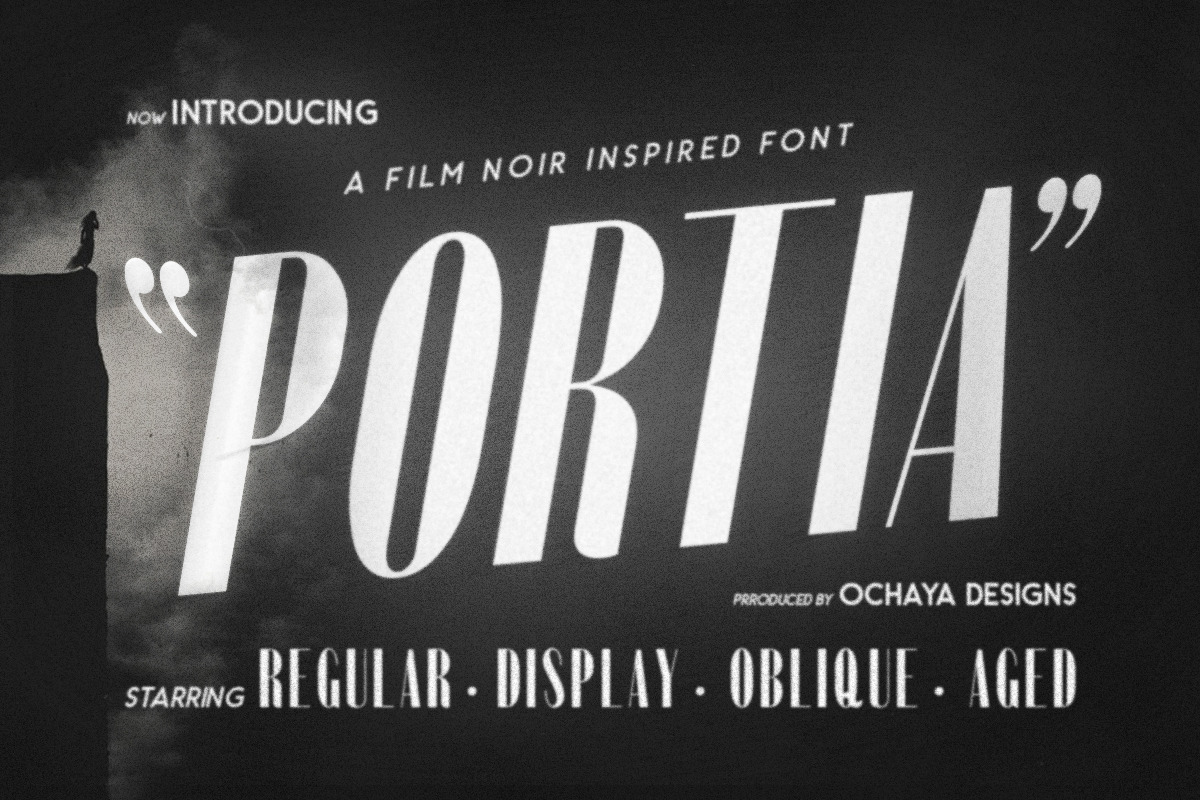
Portia | Film Noir Inspired Font
P O R T I A
Portia is a tall contemporary typeface inspired by the film noir genre. It is a versatile, easy-to-use font and a great addition to any font collection. It is best used for branding, print design, title headings & so much more. Download it now!
A well crafted tall sans serif typeface.
Uppercase Characters
Four Styles to choose from